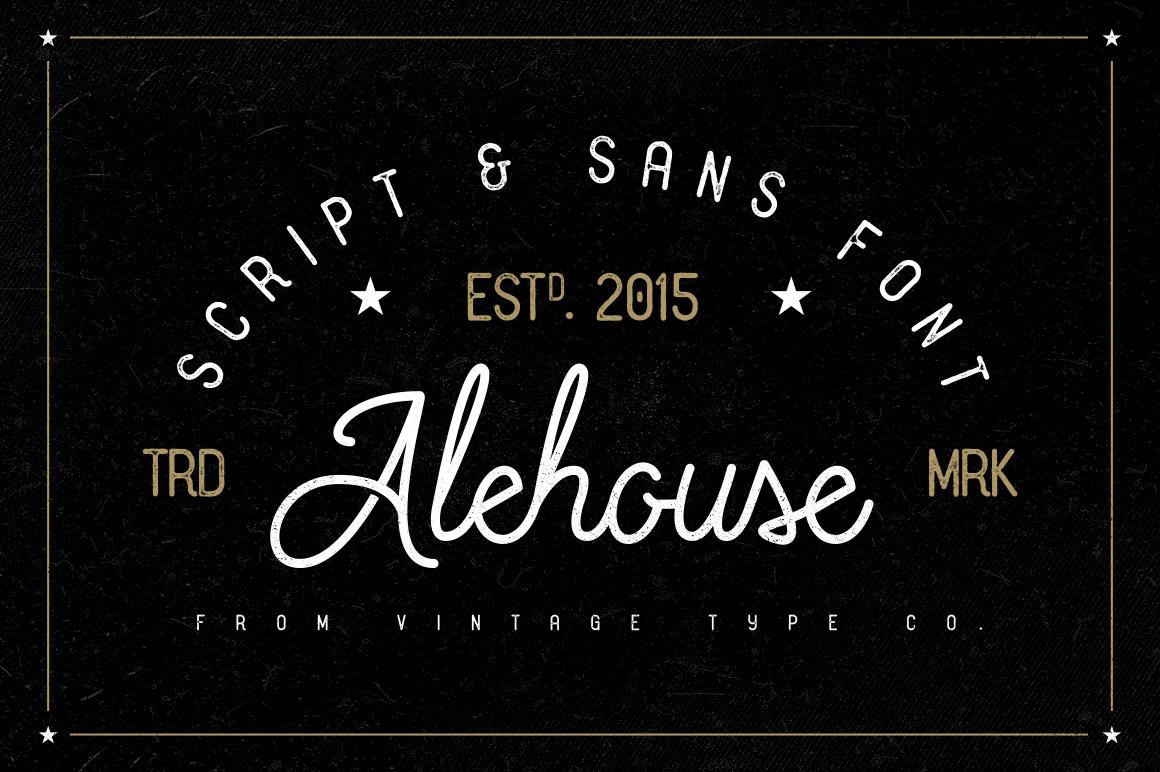
Alehouse Combo Font
Alehouse combo font is a font composed of one san-serif and one mono-line script type face. Each of them have enough character packed into them to stand on their own, but they also work as a family with similar characteristics and traits stemming through both.
Both Alehouse Script & Sans come loaded with swash alternatives to flourish up your type treatments as well as multilingual support.